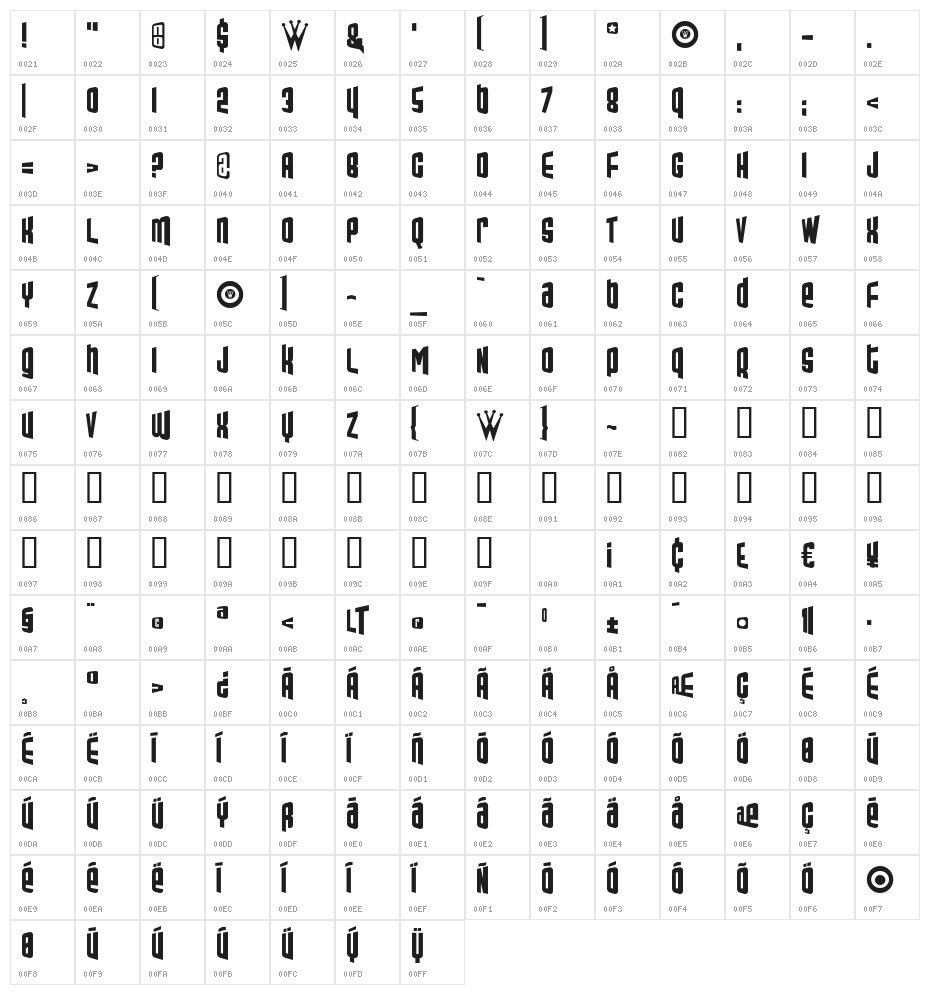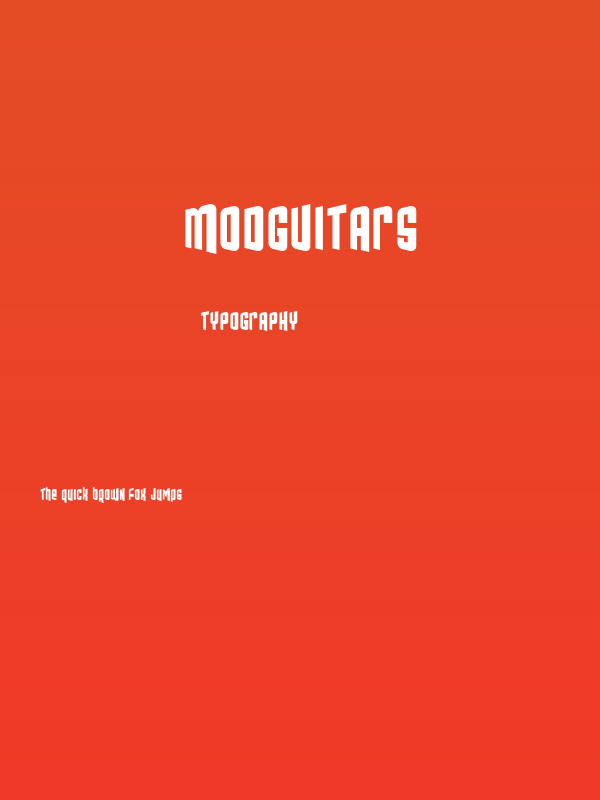
ModGuitars Font
ModGuitars Description
This font features a bold and geometric design with a modern flair. The characters are blocky and angular, giving them a strong, impactful presence. The uppercase and lowercase letters maintain a consistent style, with sharp edges and a uniform width. Numbers and special characters follow the same design principles, ensuring a cohesive look across all elements. The font's unique style makes it stand out, with a slightly futuristic and industrial feel. It's ideal for projects that require a bold statement and a modern aesthetic.
| Proposed Projects | Ideal for branding, posters, album covers, and any project needing a strong, modern look. |